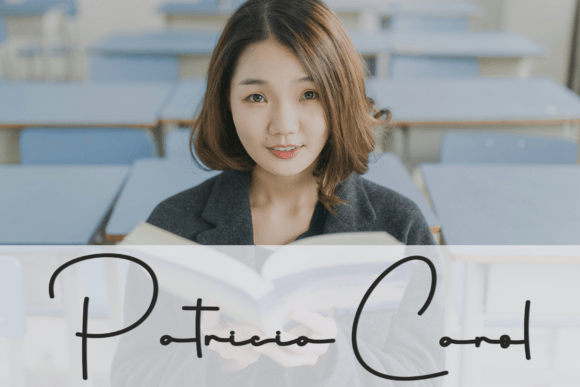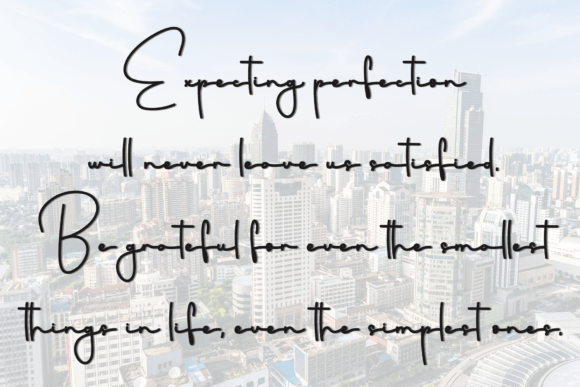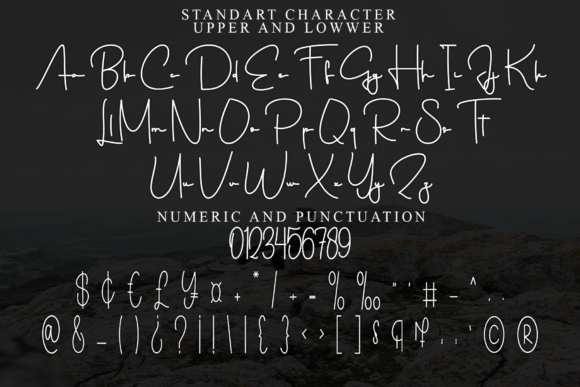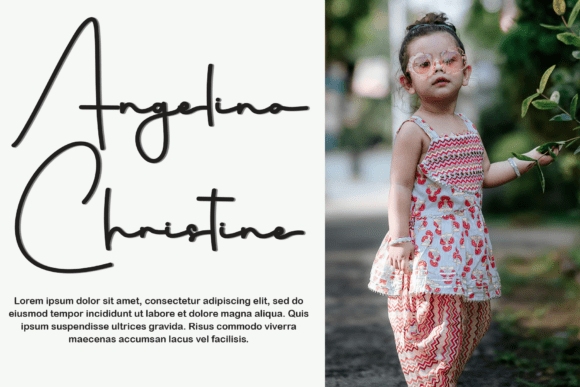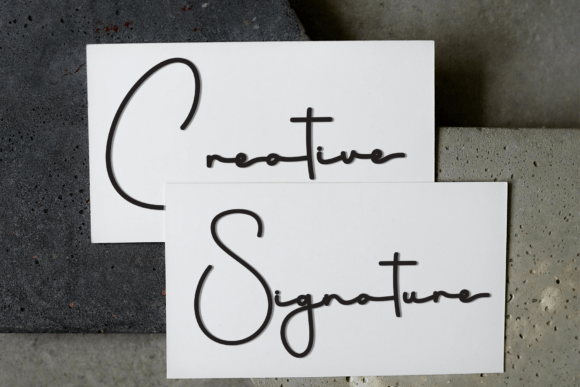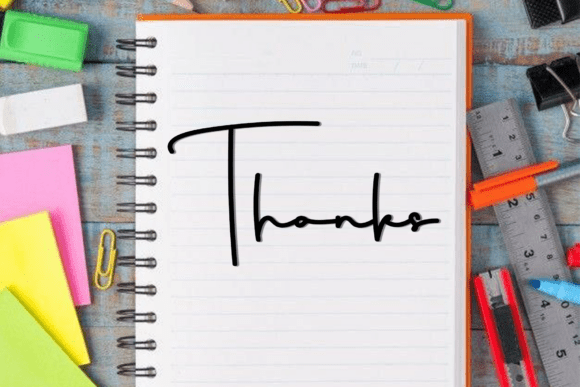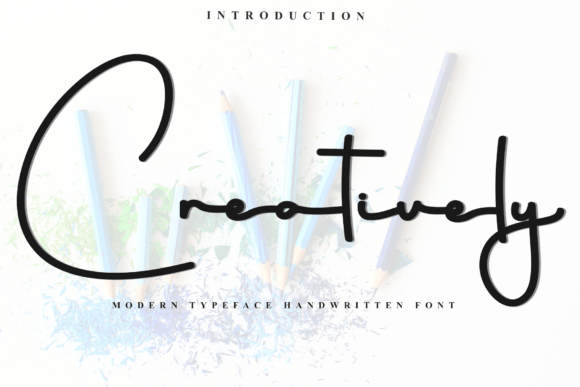
Introducing Creatively Font: Add a Touch of Holiday Magic to Your Designs
Are you looking for a typeface that embodies the spirit of the holiday season? Do you want to add a dash of whimsy and enchantment to your designs? Look no further than Creatively Font, a festive and merry typeface that’s perfect for greeting cards, gift tags, and holiday-themed projects.
Creatively Font is a beautifully crafted typeface that’s designed to capture the essence of the holiday season. With its decorative elements and whimsical flair, this font adds a touch of magic to your designs. Whether you’re creating holiday greeting cards, gift tags, or festive posters, Creatively Font is the perfect choice.
Creatively Font is specifically designed for holiday-themed projects, making it a must-have for designers and crafters who want to create festive and engaging designs. The font’s playful and cheerful ambiance is perfect for:
- Holiday greeting cards
- Gift tags and wrapping paper
- Festive posters and flyers
- Holiday-themed party invitations
One of the best things about Creatively Font is that it’s PUA (Private Use Area) encoded, which means you can access all of the amazing glyphs and ligatures with ease. This makes it simple to add decorative elements and special characters to your designs, giving them an extra touch of personality and flair.
Whimsical and Nostalgic Ambiance
Creatively Font has a whimsical and nostalgic ambiance that’s perfect for the holiday season. The font’s decorative elements and playful ligatures evoke a sense of childhood wonder and magic, making it perfect for designs that aim to capture the spirit of the holidays.
Let Your Typography Shine
With Creatively Font, you can let your typography shine with the magic of the holiday season. The font’s unique and playful design makes it perfect for adding a touch of personality to your designs. Whether you’re a designer, crafter, or DIY enthusiast, Creatively Font is a must-have for anyone looking to add a dash of holiday magic to their projects.
Key Features of Creatively Font
- Festive and merry typeface
- Decorative elements and whimsical flair
- Perfect for holiday-themed projects
- Whimsical and nostalgic ambiance
- Perfect for greeting cards, gift tags, and festive posters
In conclusion, Creatively Font is a must-have for designers and crafters who want to add a touch of holiday magic to their designs. With its unique and playful design, PUA encoding, and whimsical ambiance, this font is perfect for holiday-themed projects. So go ahead, let your typography shine with the magic of Creatively Font!